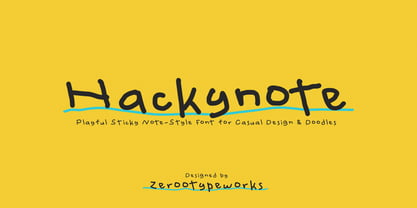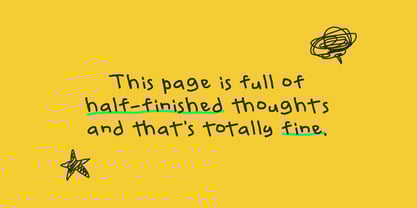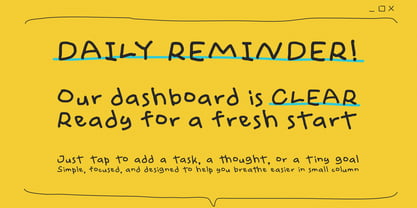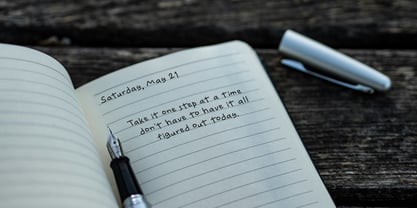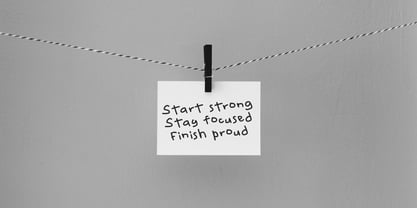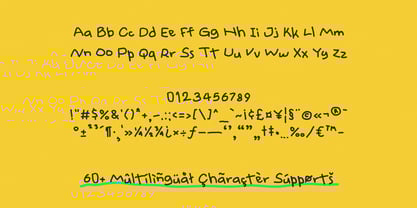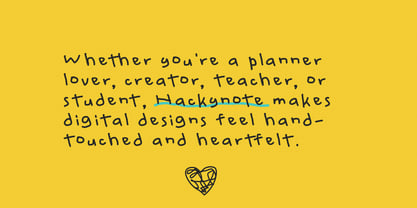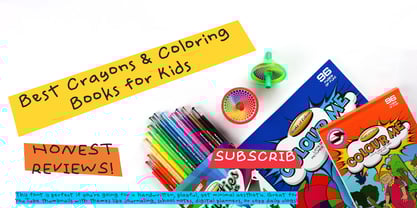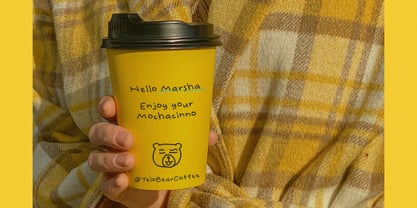
ZRTW Hackynote
by Zerootypeworks
The ZRTW Hackynote Font Family was designed by Gumilang Anggara Ruslan and published by Zerootypeworks. ZRTW Hackynote contains 1 styles. More about this family
Hackynote is a cheerful handwritten font inspired by sticky notes, school doodles, and casual thoughts scribbled in passing. Its loose and spontaneous appearance gives any design a sense of relatability and warmth perfect for laid-back projects that don’t take themselves too seriously.
• Font style & energy: Informal, playful, friendly, quick
• Market vibe fit: Ideal for journaling templates, student stationery, planners, DIY Instagram posts, classroom printables, and minimalist social graphics
• Letterform structure: Rounded, handcrafted monoline style with natural tilt and spacing
• Best use cases:
• Digital note-taking apps & UI elements
• Planner or calendar design
• Kids’ worksheets & learning tools
• YouTube thumbnails
• Sticker and label design
• Bullet journals and zines
Designers: Gumilang Anggara Ruslan
Foundry: Zerootypeworks